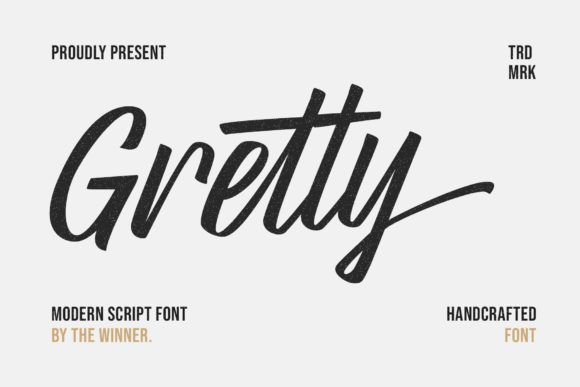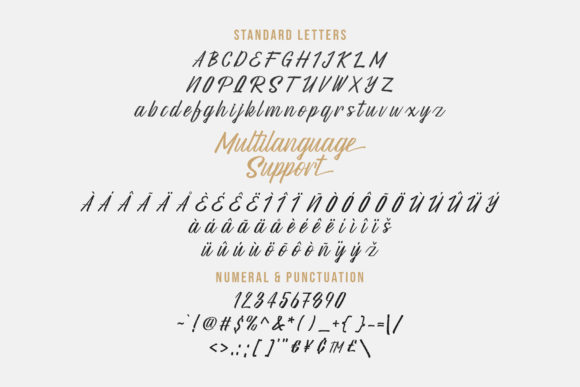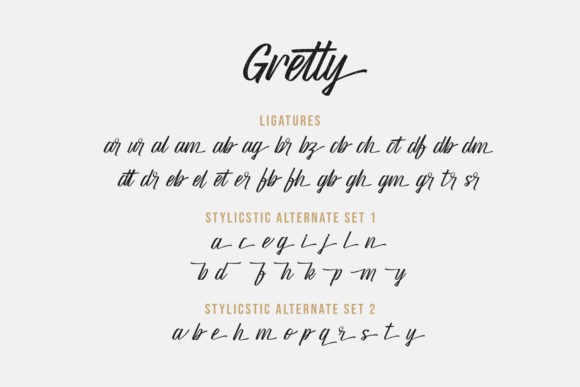
Gretty Script Font
About Gretty Script Font
Gretty Script is a gorgeous script font, designed spontaneously in a unique and neat style. It was created to be used for wedding cards, beautiful stationary art, eye-catching social media posts, and much more!